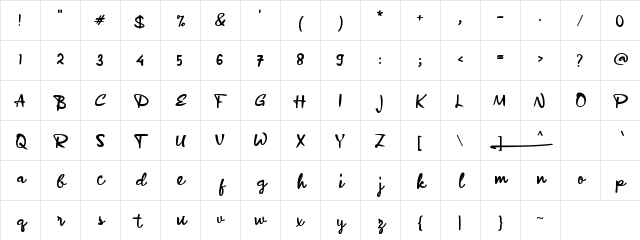
Complete a Affirmation Regular glyph index. Displaying only characters natively supported by a Affirmation Regular font.
a Affirmation is a composed and adaptable typeface that performs quietly and consistently across a wide range of design contexts.